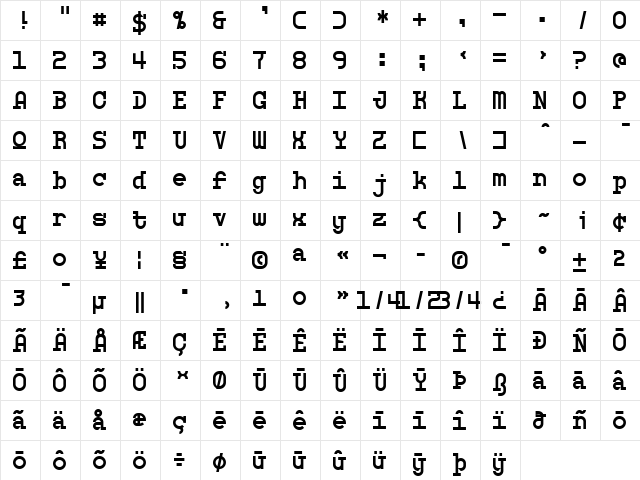
Monosphere Personal Use Regular Font Preview
Monosphere Personal Use Regular
Monosphere Personal Use Regular Font Details
Design Context for Monosphere Personal Use Typeface
Monosphere Personal Use brings the precise, column-aligned rhythm of monospaced typography to designs that value technical clarity and systematic order.
Pro Tip: Pair Monosphere Personal Use with a proportional sans for UI contexts where code-style labels and regular body copy need to coexist.